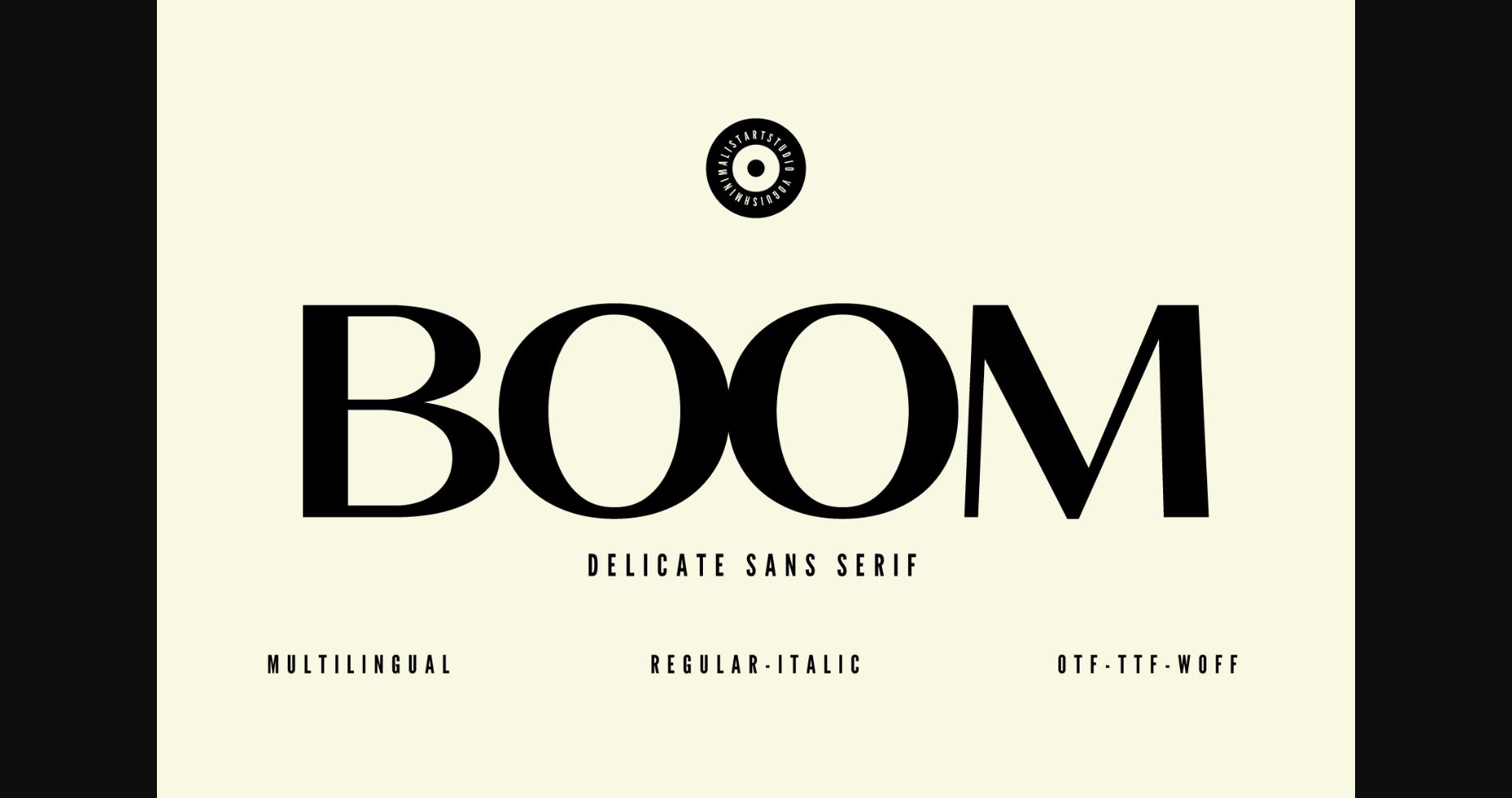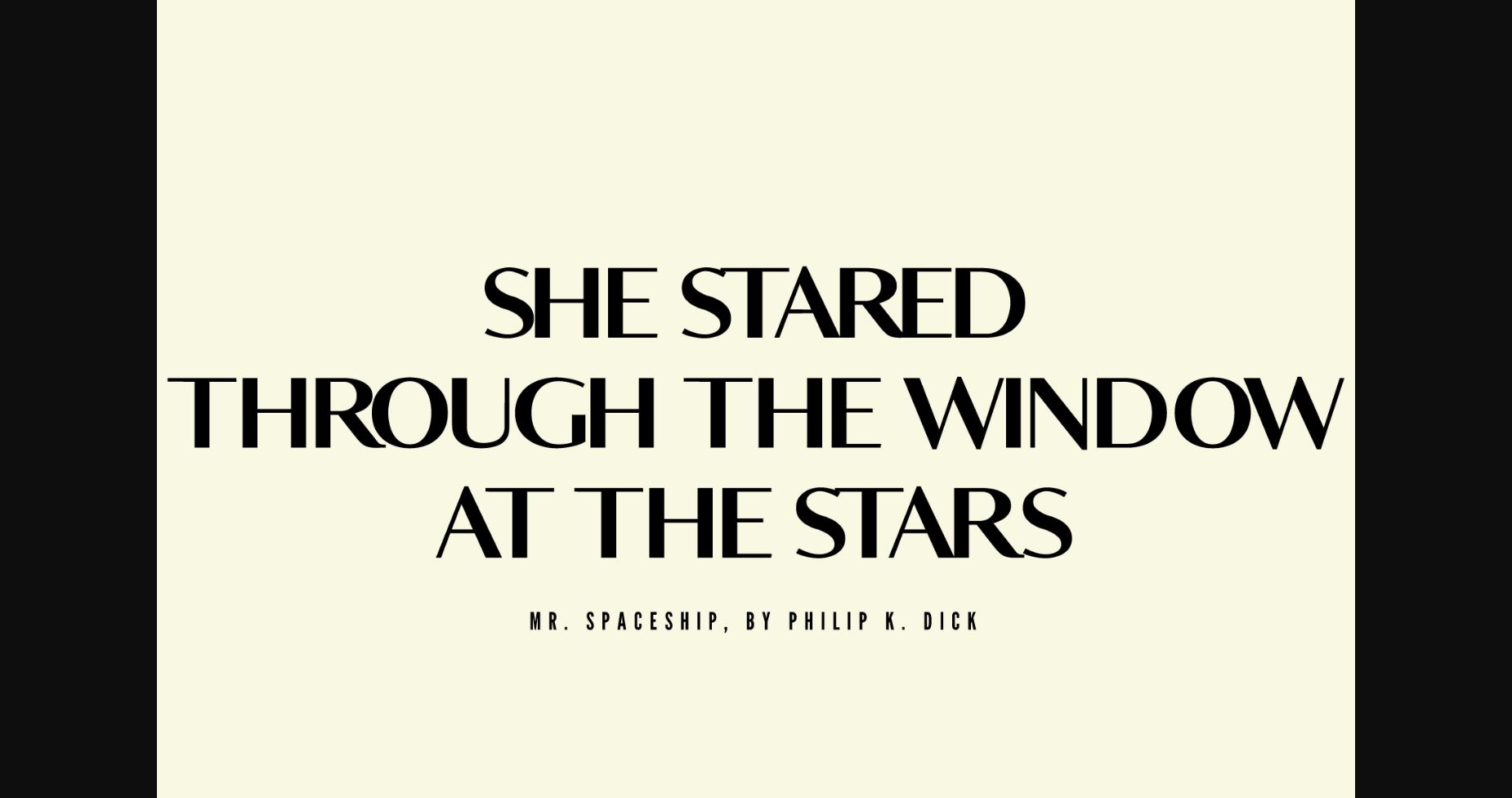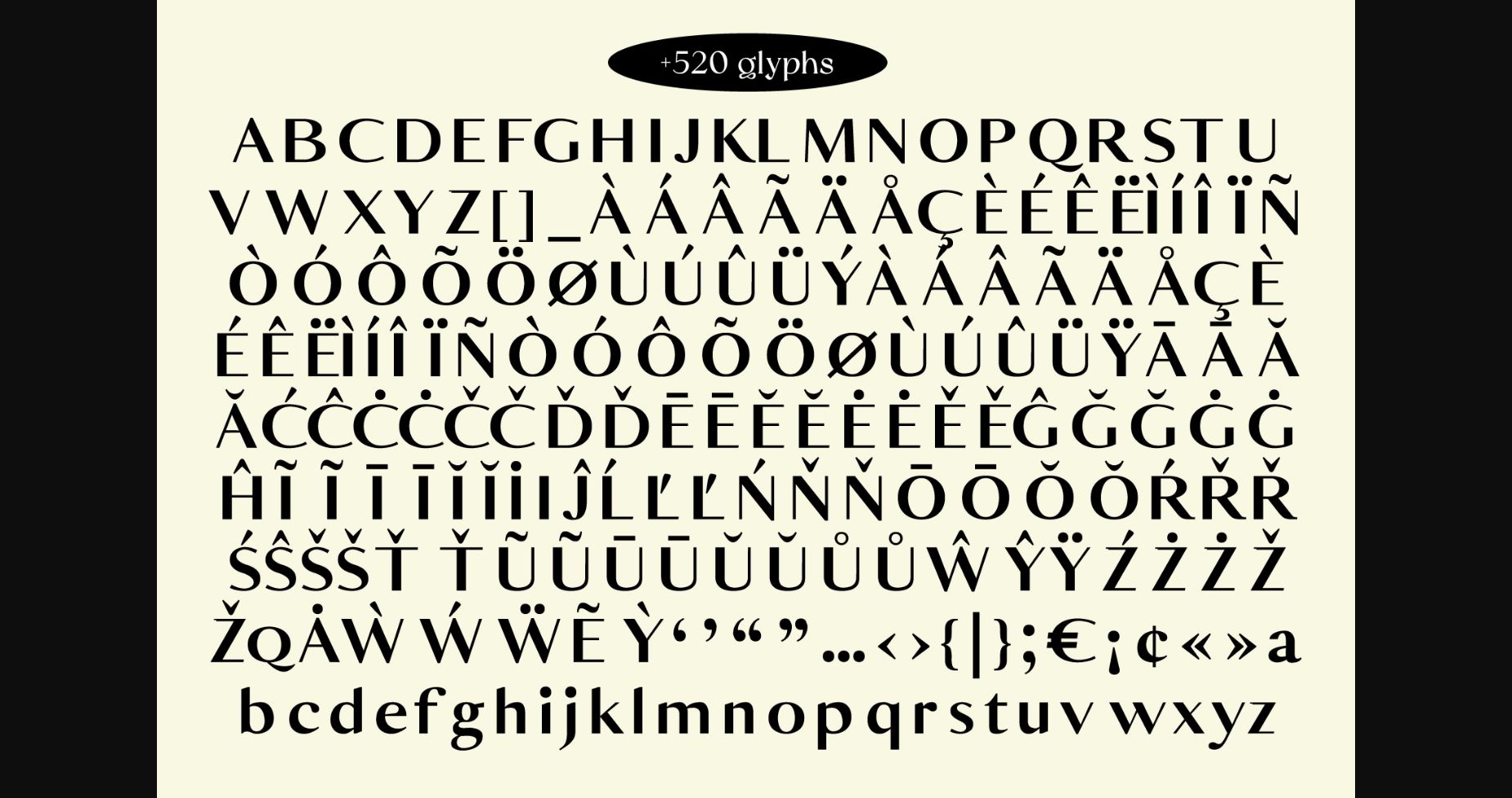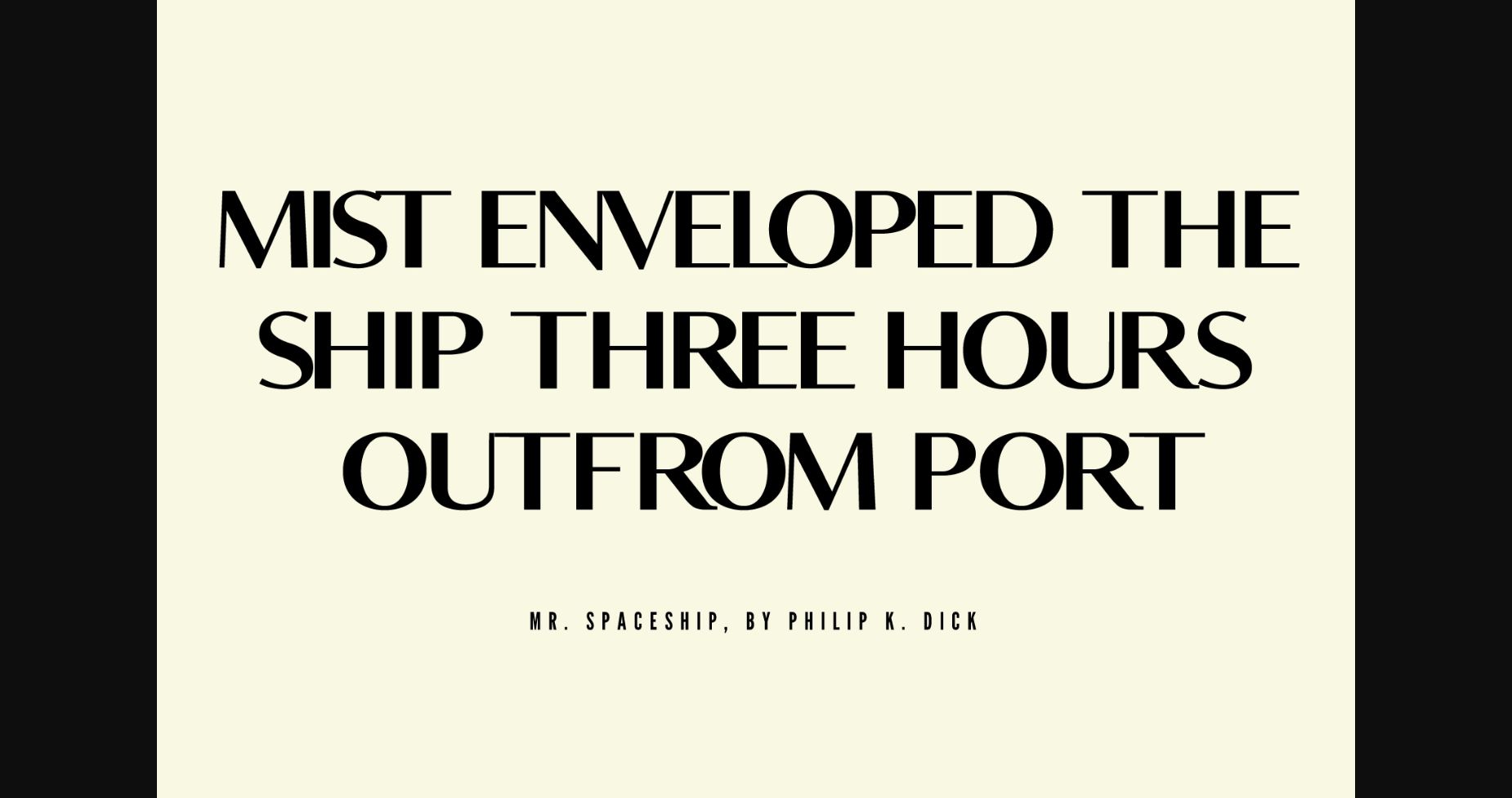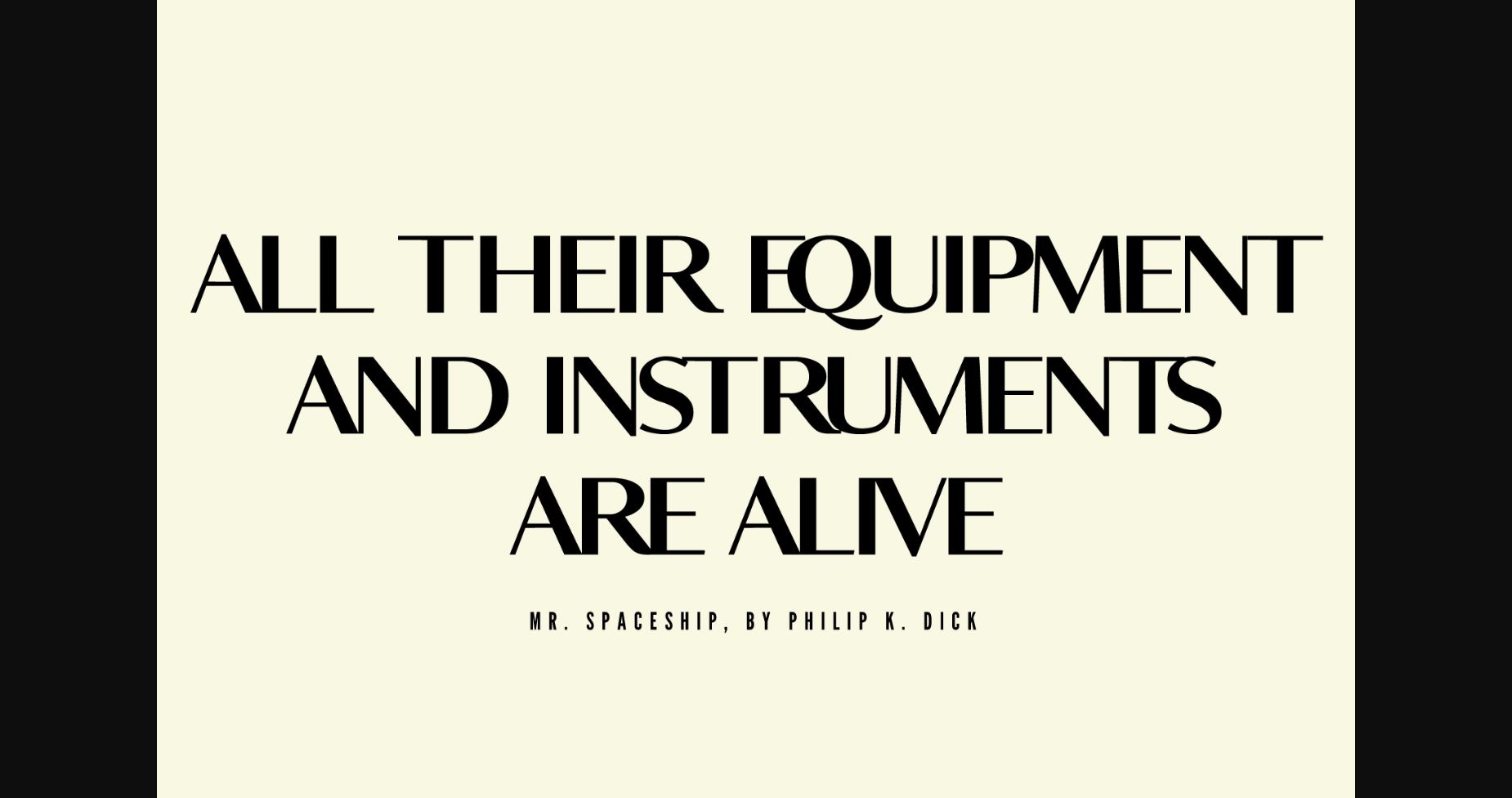
About Boom Font
Introducing Boom, a minimalist and elegant sans serif typeface that brings a touch of sophistication to your designs. With clean lines and a contemporary aesthetic, Boom makes a bold statement while remaining effortlessly versatile. Crafted with precision, its refined letterforms ensure legibility and captivate attention. Elevate your projects with Boom’s timeless elegance and embrace the power of exceptional typography.